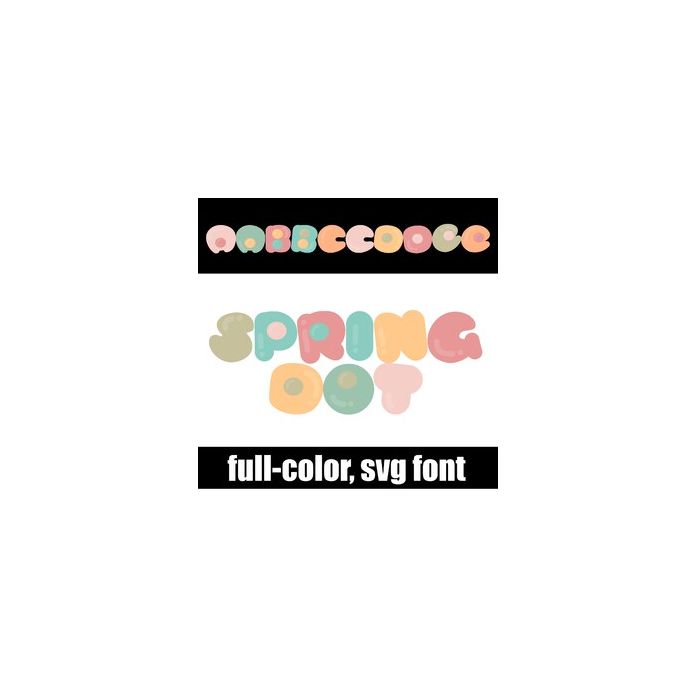
This full-color font features bubbly lettering in a spring color palette. There is an alt version you can access through your system's character map that contains additional colors of all the letters.